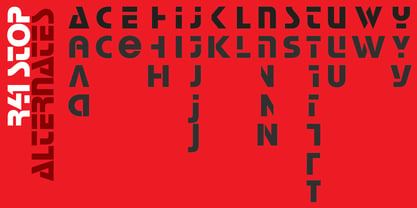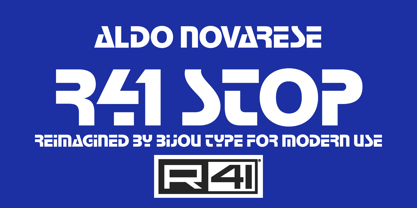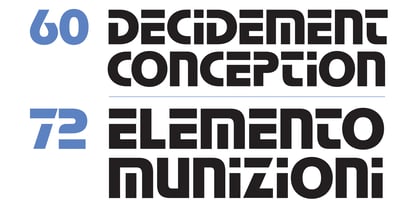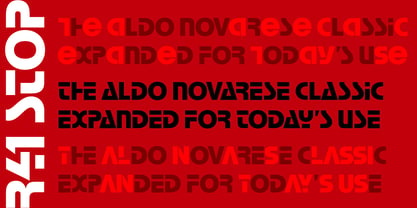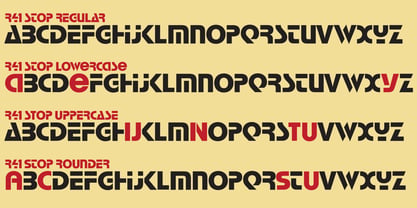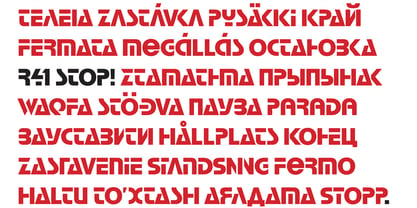
R41 Stop
by Reber R41
The R41 Stop Font Family was designed by Aldo Novarese, Dan Rhatigan and published by Reber R41. R41 Stop contains 4 styles and family package options. More about this family
Aldo Novarese originally said of is iconic design: “It is the most discussed and imitated font in the international graphic field. It opened new avenues in the simplification of the future alphabetic sign. Some letters, despite being halved, are very legible in the graphic context. It was created to compose not only imaginative phrases but also: trademarks, acronyms, signs, insignia.” For this new digital version of Stop, it was important to draw inspiration from the dry transfer type Reber R41 originally manufactured. This new version is based on the films prepared for R41’s version, but then given many more characters that extend the concept, including a wide variety of accented characters, symbols, and letters for the Cyrillic and Greek alphabets. R41 Stop is also filled with alternates for many of its letters, based on adaptations made over the years by designers and signmakers worldwide.
Designers: Aldo Novarese, Dan Rhatigan
Foundry: Reber R41
Reber R41 is an Italian company founded in Spresiano, Treviso, in 1960 by Renato Bernardi, inventor of his own method of dry transfer type, and still run by his family. Since 1969, R41 has produced dry-transfer adaptations of iconic designs from Nebiolo Type Foundry, including its most experimental creations designed for the booming Italian advertising industry. Designer Aldo Novarese, who retired from Nebiolo in the early ’70s, worked with Reber R41 for years afterward designing brands, catalogues, advertising and of course…typefaces. Now Reber R41 provides new digitizations of the work of Novarese and Nebiolo of Turin, brought together in a unique collection that preserves the best of historic Italian typography of the twentieth century.